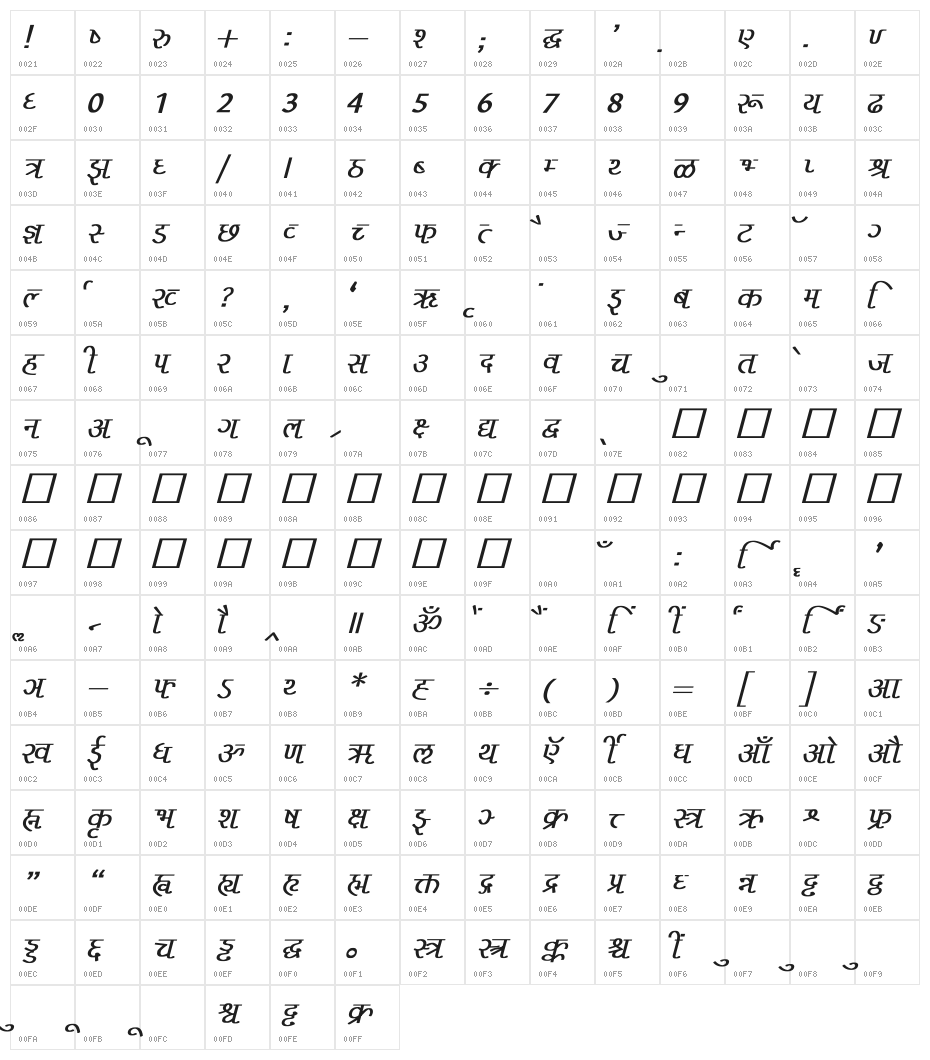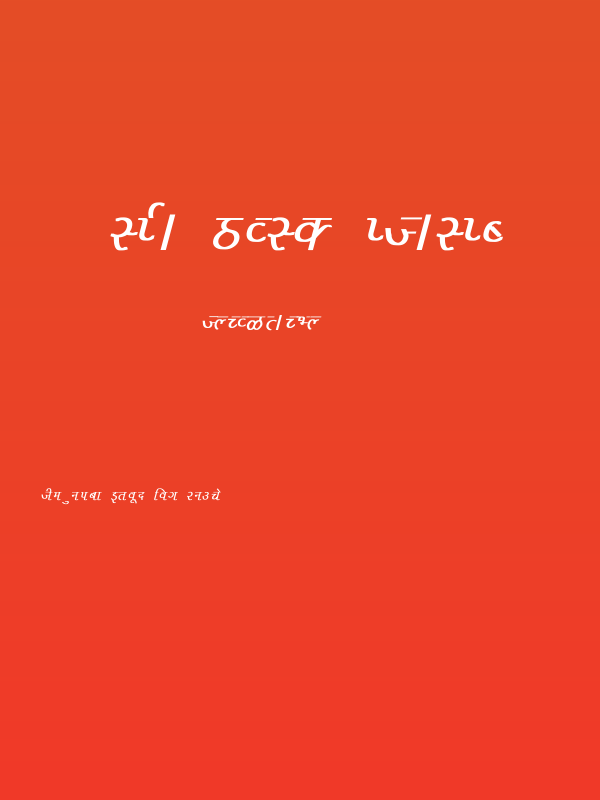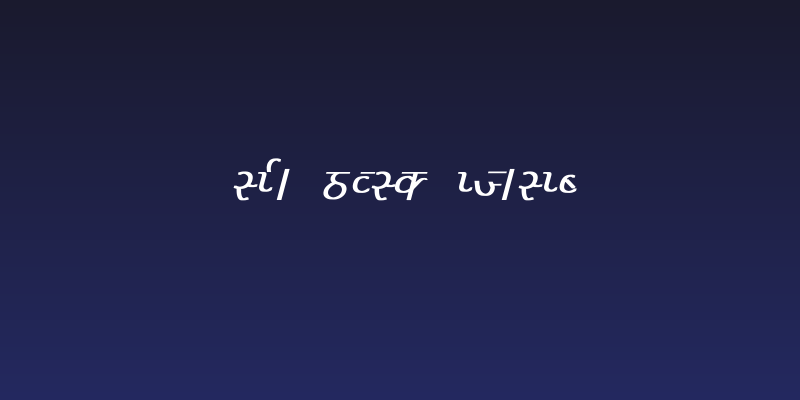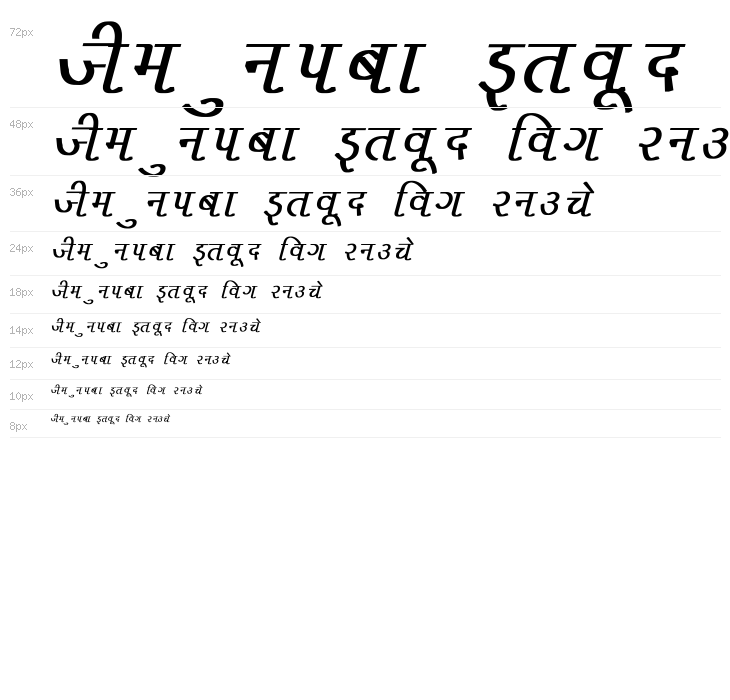
Liza Bold Italic Font
Liza Bold Italic Description
This font features a bold and italicized style with a distinct flair, characterized by its elegant curves and dynamic slant. The letters exhibit a harmonious balance between thick and thin strokes, creating a sophisticated and fluid appearance. The numerals are equally stylized, maintaining the font's overall aesthetic. Special characters are designed with the same attention to detail, ensuring consistency across all glyphs. This font's unique style makes it suitable for projects that require a touch of elegance and creativity.
Overall StyleElegant
Use CaseLogos, Headlines, Invitations
Proposed ProjectsIdeal for branding, invitations, editorial design, and artistic projects.